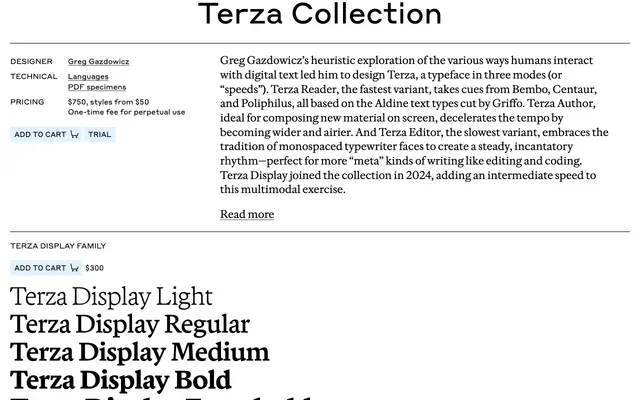
Terza
Commercial Type · Greg Gazdowicz
A four-optical-size serif system from Greg Gazdowicz at Commercial Type, running from Display through Reader, Author and Editor.
A serif system from Commercial Type by Greg Gazdowicz, drawn across four optical sizes for a complete editorial stack. Terza Display carries the high contrast headline cut, Terza Reader the body face, Terza Author a slightly heavier intermediate cut, and Terza Editor a smaller-size workhorse with a Regular No 2 alternate. Each size carries up to five weights with matching italics. Sits across newspapers, magazines and long-form publishing where you want a single voice tuned for every size in the system.
Commercial Type list Terza as a four-optical-size serif system by Greg Gazdowicz, running from Display through Reader, Author and Editor sizes.